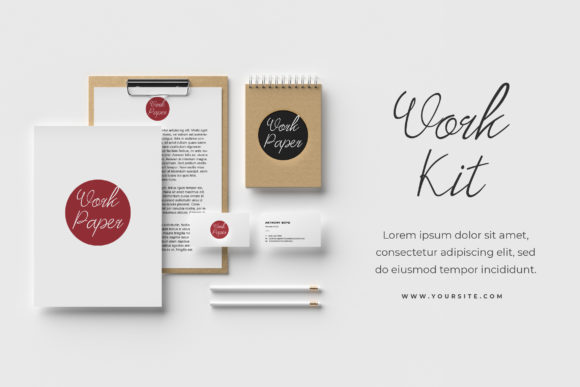
Are you ready to make a bold statement with your designs? Look no further than King Helena, the captivating script font that will transform your creative visions into stunning masterpieces.
Indulge in the effortlessly stylish flow of King Helena, a font that evokes the graceful strokes of a pen. Each letter dances across the page with a unique charm, adding a touch of elegance and intrigue to your every word.
With King Helena at your fingertips, let your imagination soar. Craft eye-catching logos that demand attention, create unforgettable branding that sets you apart, or design inspiring quotes that resonate with hearts and minds. The possibilities are endless!
Unleash the power of King Helena and elevate your designs to new heights. Its versatility knows no bounds, making it the perfect choice for a wide range of projects. Whether you're a seasoned designer or just starting out, King Helena will empower you to express your creativity like never before.
Don't settle for ordinary fonts – embrace the extraordinary with King Helena. Let its captivating curves and enchanting style ignite your designs and leave a lasting impression on everyone who beholds them.